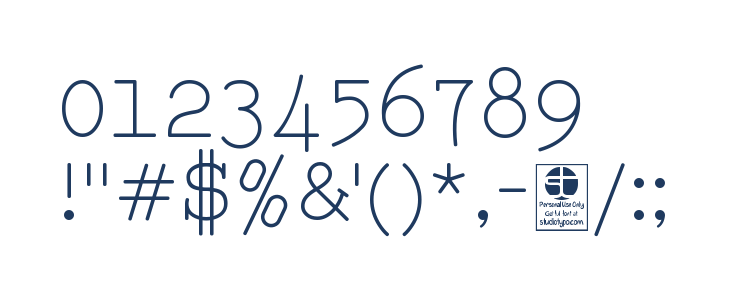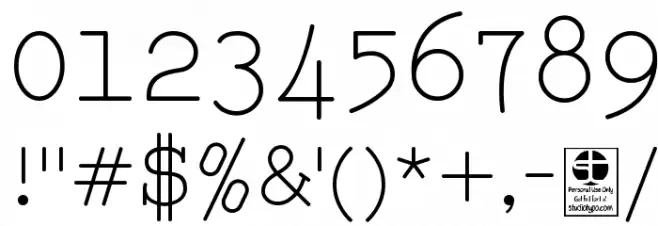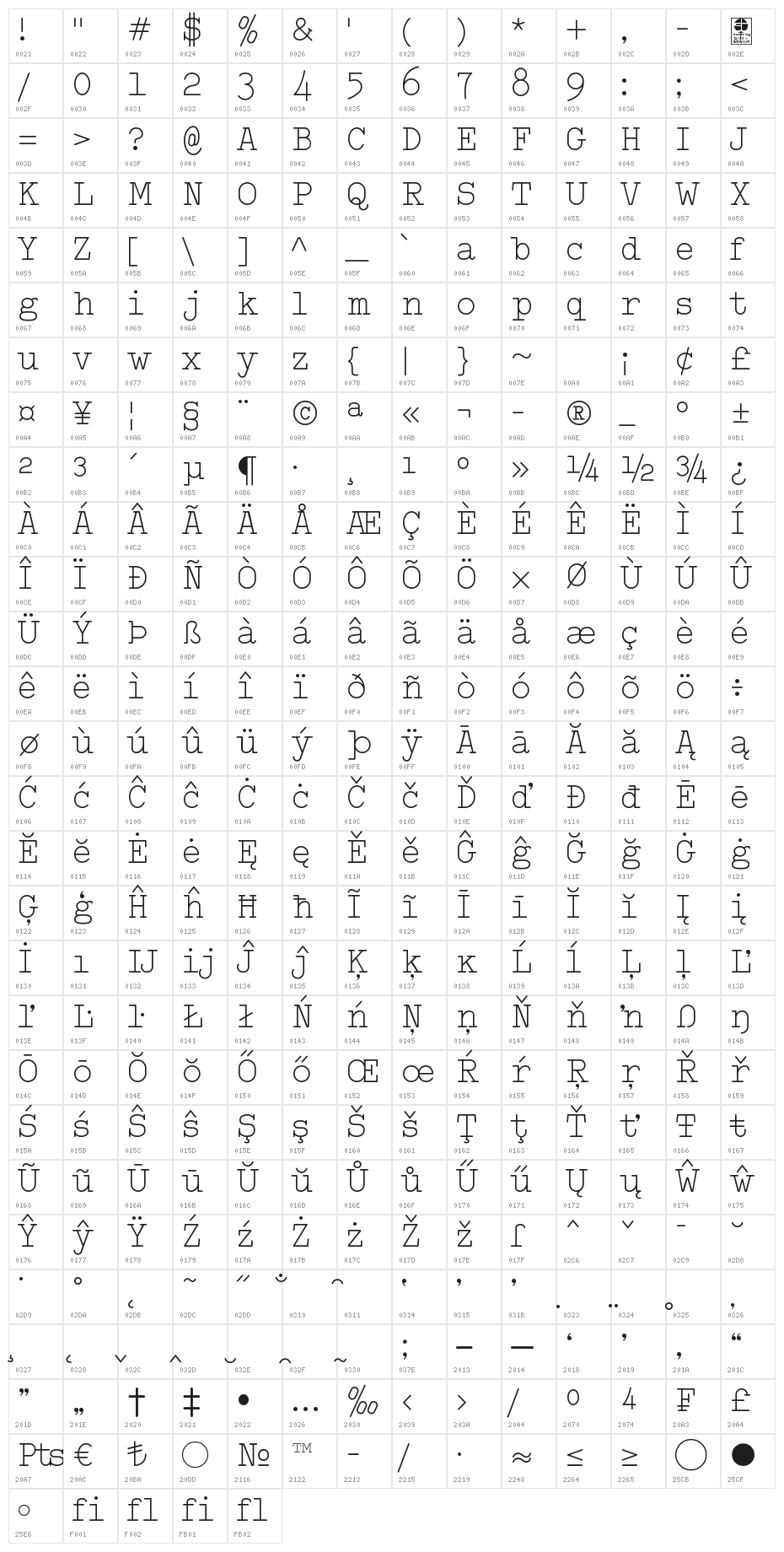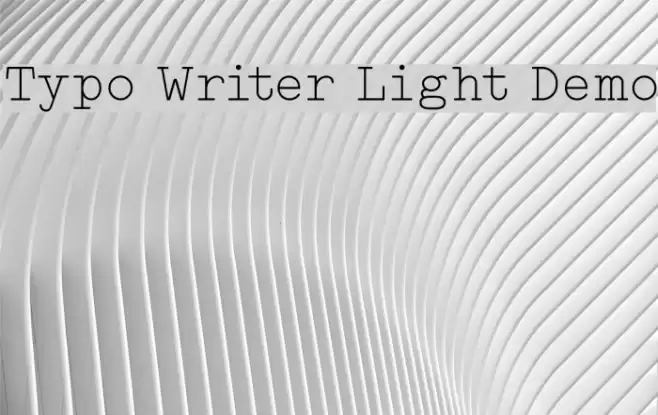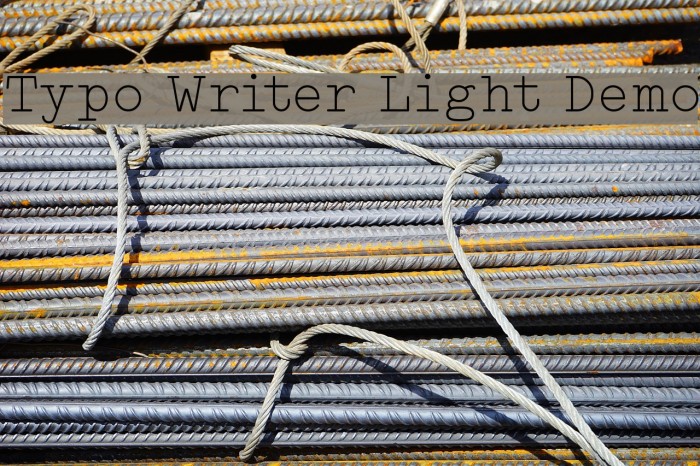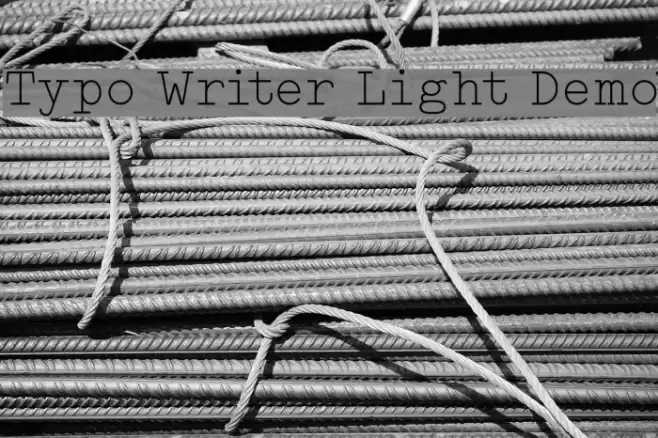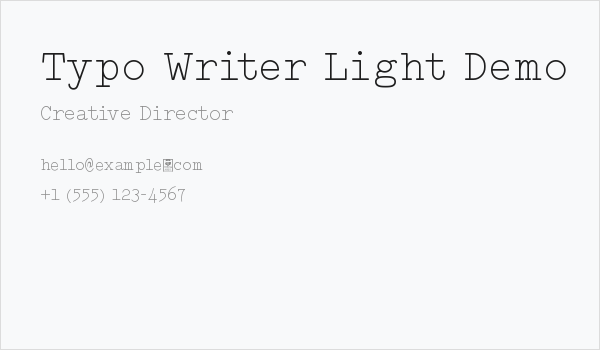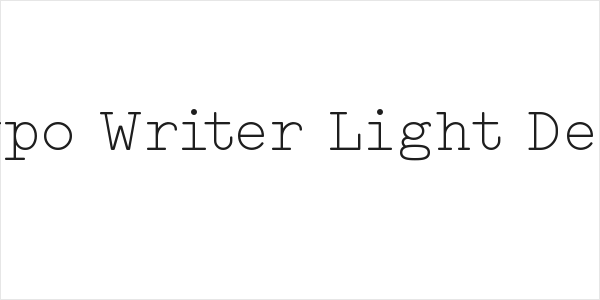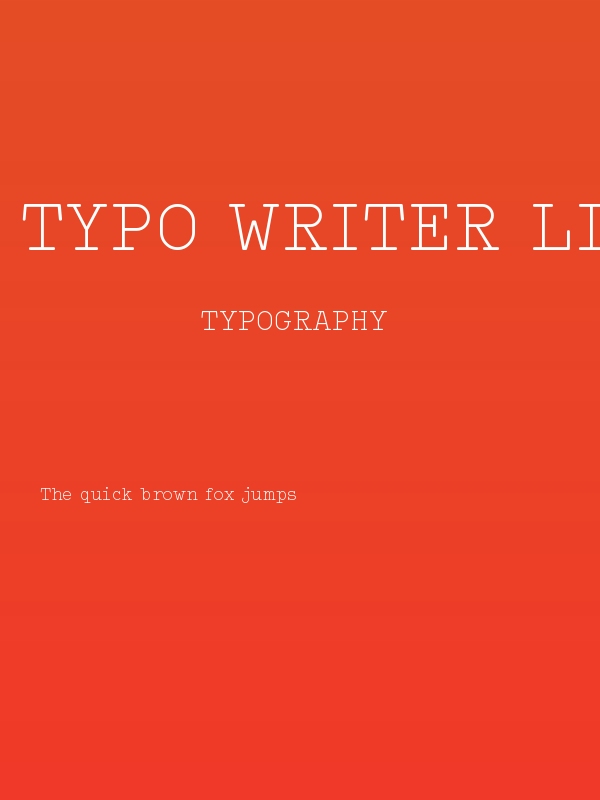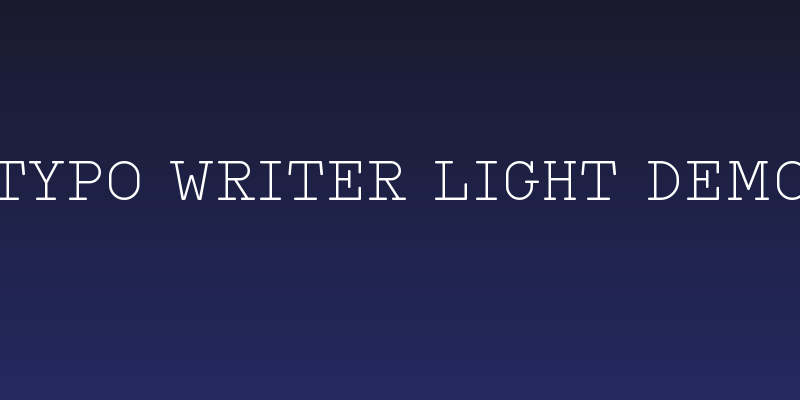
Typo Writer Light Demo Font
Typo Writer Light Demo Description
This font features a monospaced design reminiscent of classic typewriter styles. Each character is evenly spaced, providing a uniform and structured appearance. The strokes are consistent in width, offering a clean and straightforward look. The uppercase letters are bold and prominent, while the lowercase letters maintain a balanced and readable form. Numbers and special characters are crafted with the same precision, ensuring clarity and legibility across all text. This font is ideal for projects that require a vintage or retro aesthetic, as well as for technical documents where clarity is paramount.
| Use Case | Technical documents, Retro designs, Coding interfaces |
| Proposed Projects | Ideal for retro-themed designs, technical documents, coding interfaces, and any project requiring a vintage typewriter aesthetic. |